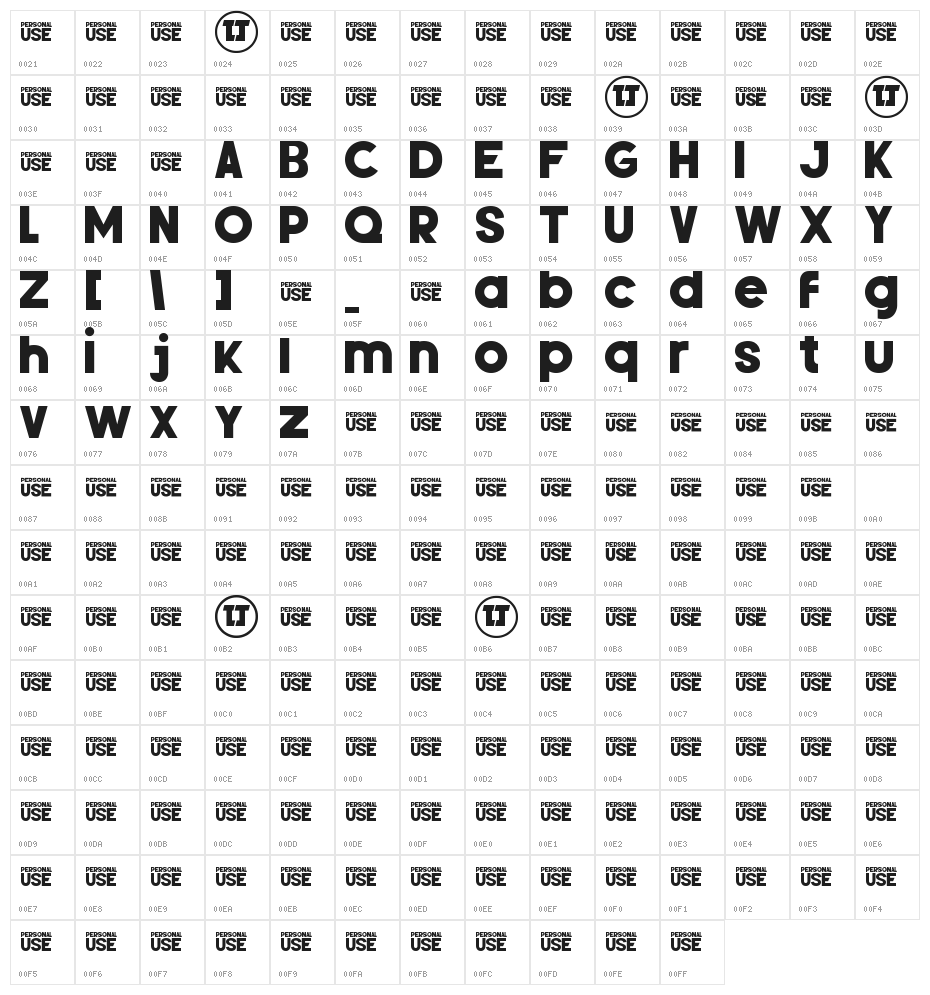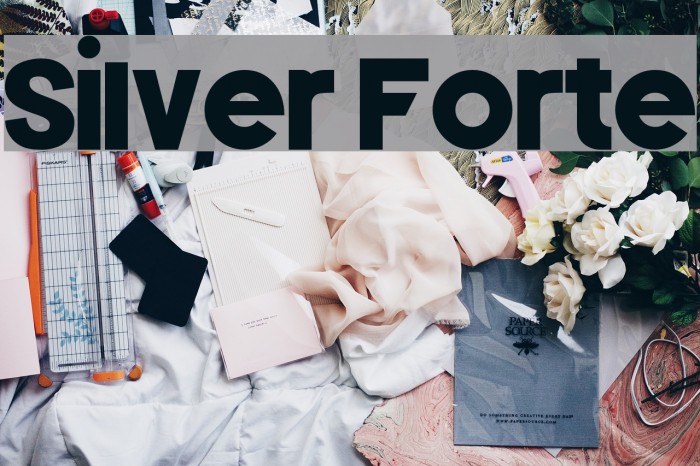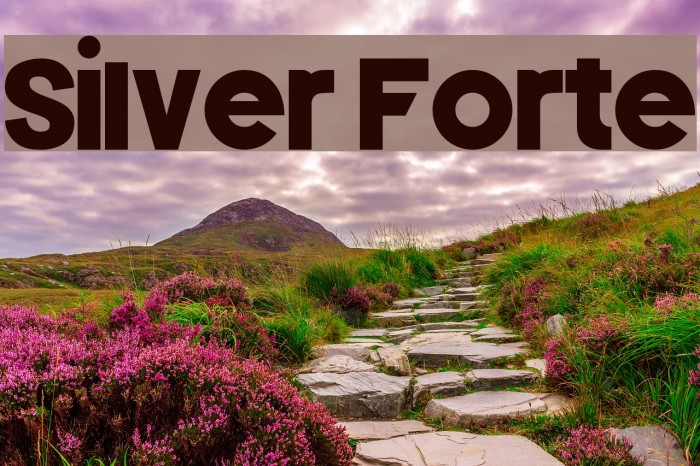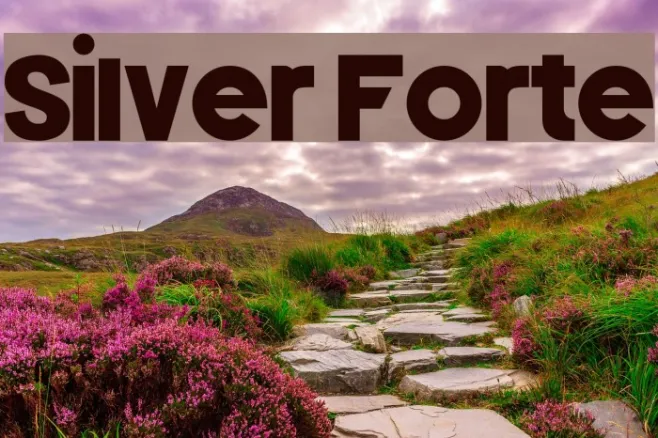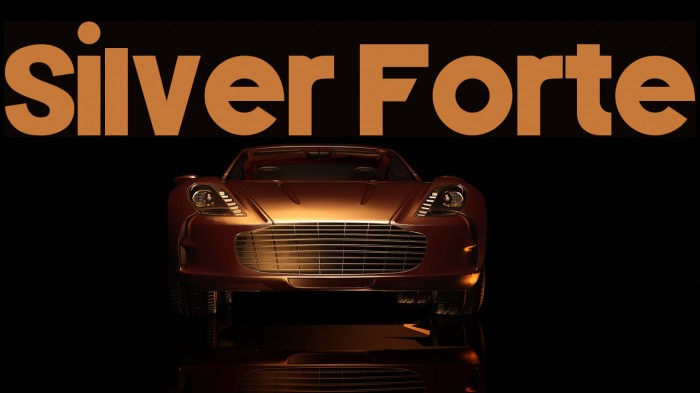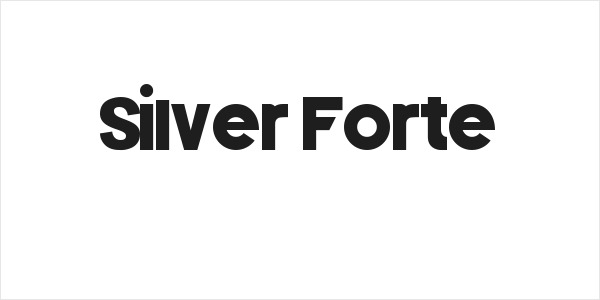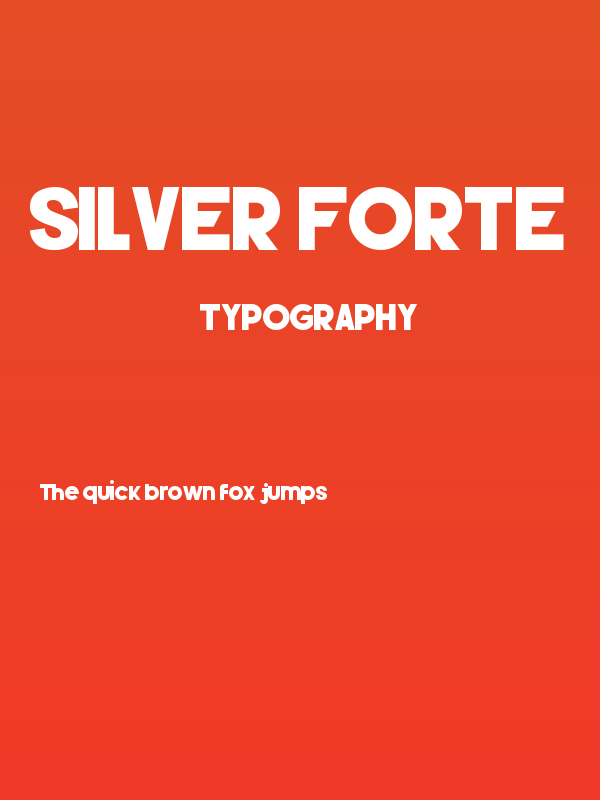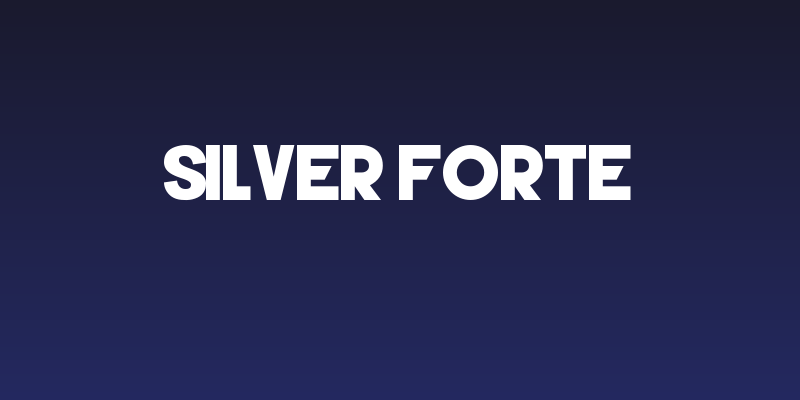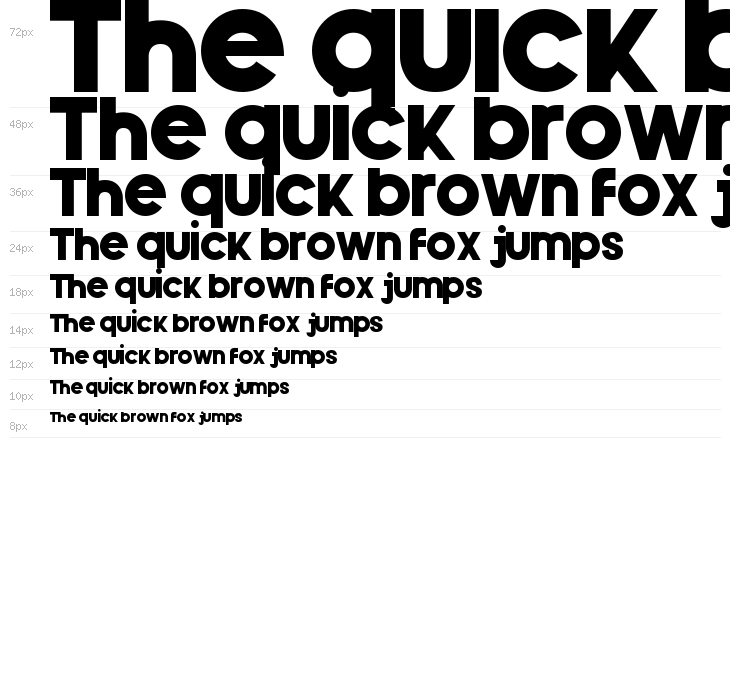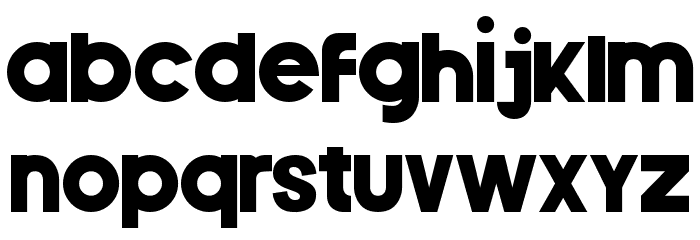
Silver Forte Font
Silver Forte Description
This font features bold, geometric letterforms with a strong presence. The characters are uniformly thick, creating a powerful and modern aesthetic. The uppercase and lowercase letters maintain a consistent weight, contributing to a cohesive look. The rounded edges of certain letters add a touch of softness to the otherwise robust design. The font's clean lines and lack of serifs make it highly legible, even at smaller sizes. Its boldness ensures that it stands out, making it ideal for attention-grabbing headlines or logos. The spacing between characters is tight, enhancing its compact and impactful appearance.
| Proposed Projects | Ideal for branding, headlines, posters, and any design requiring a strong visual impact. |